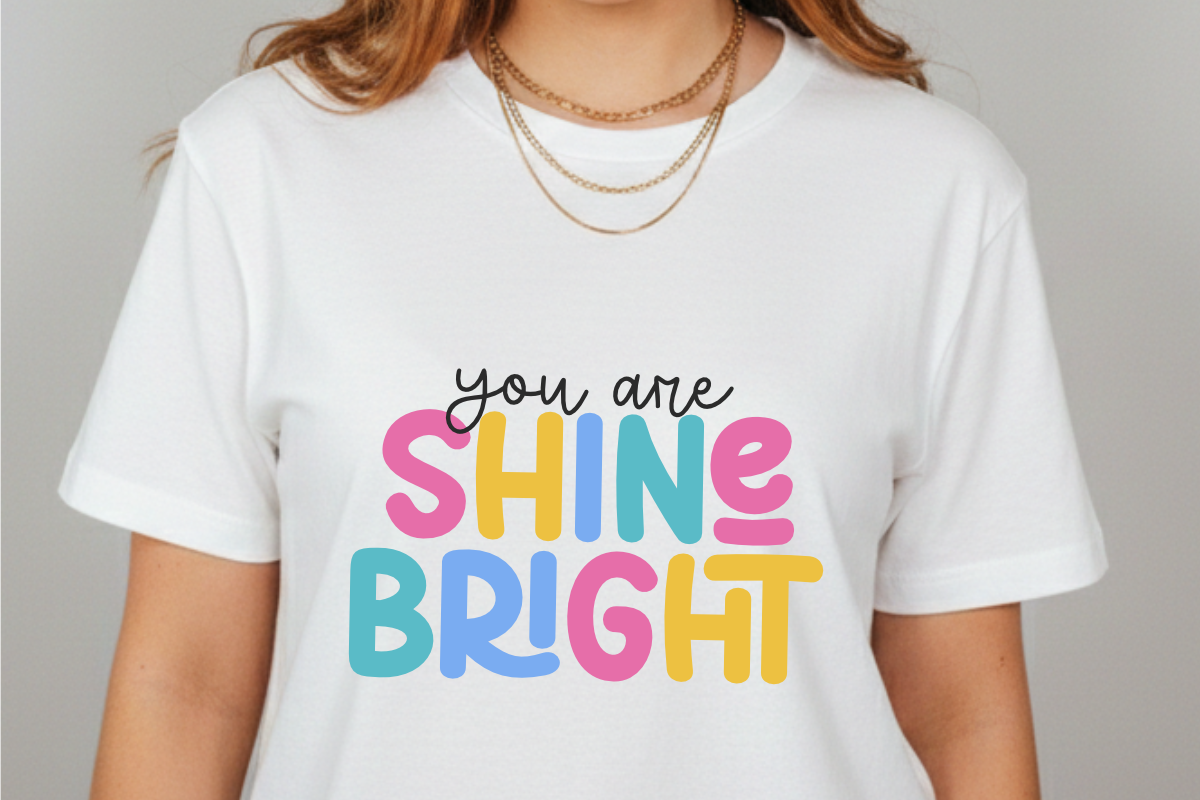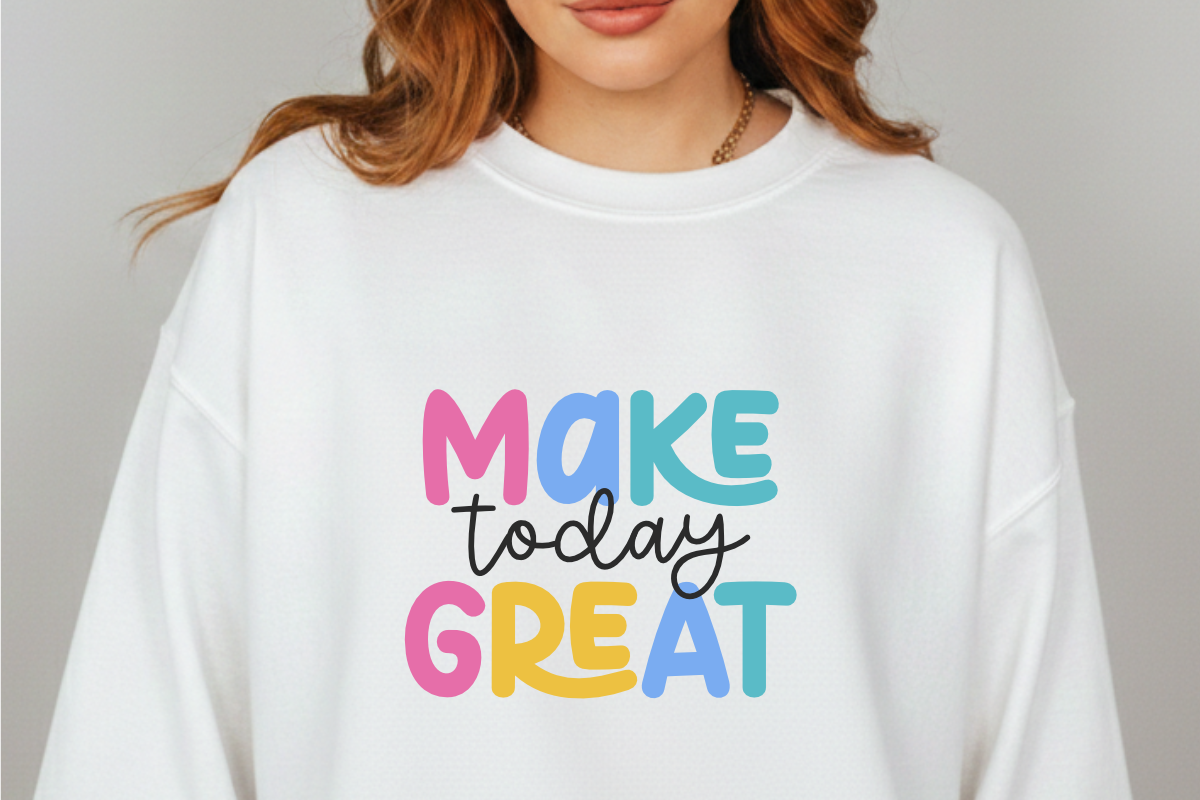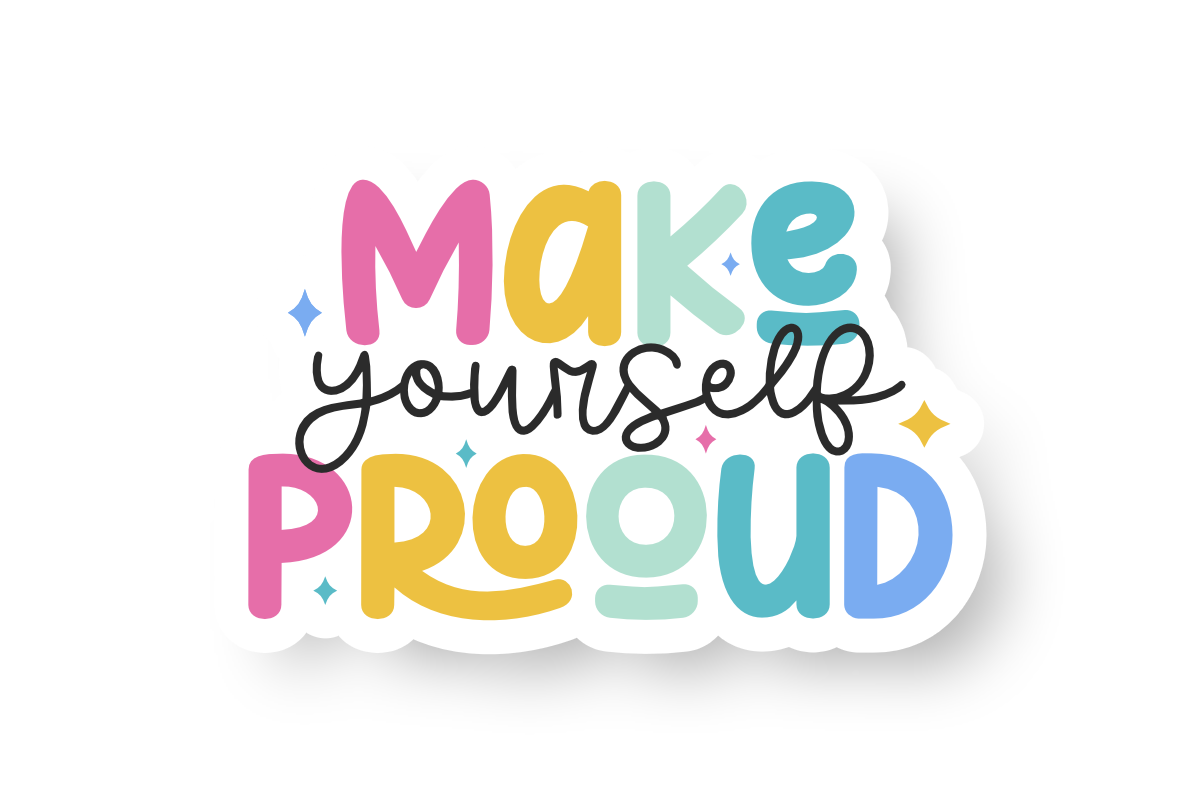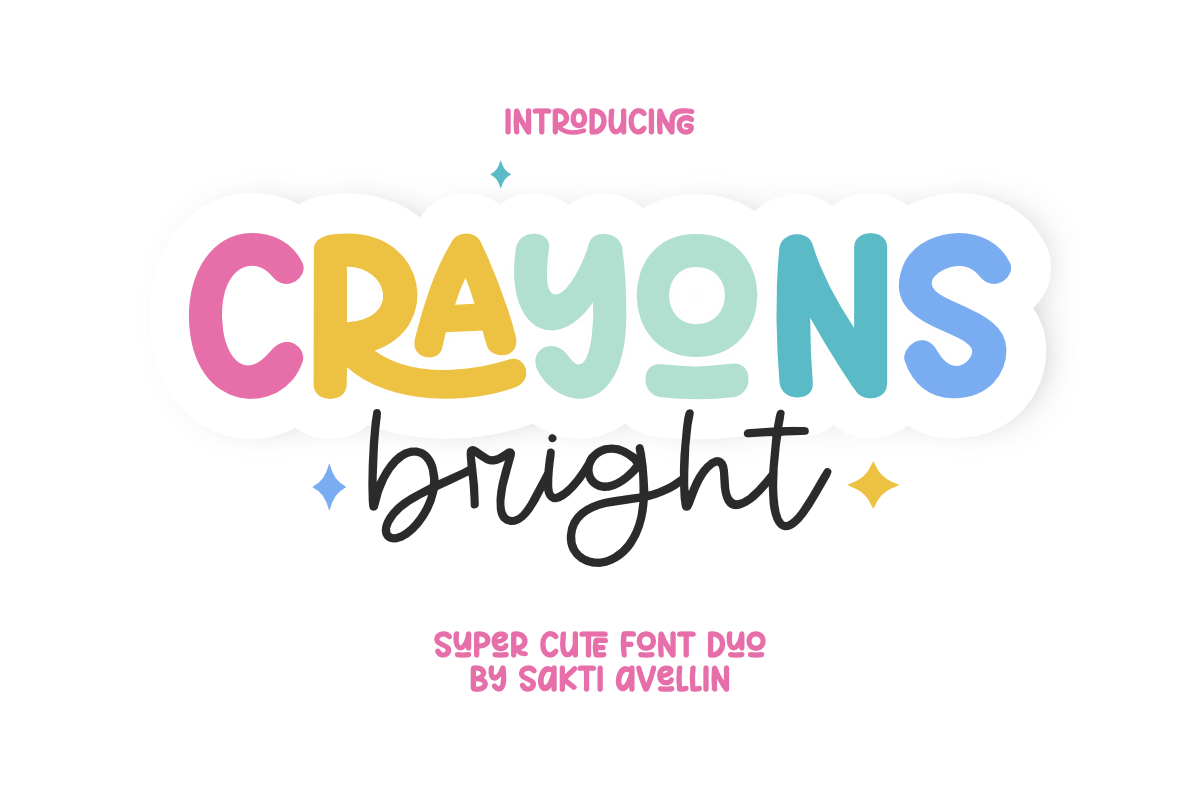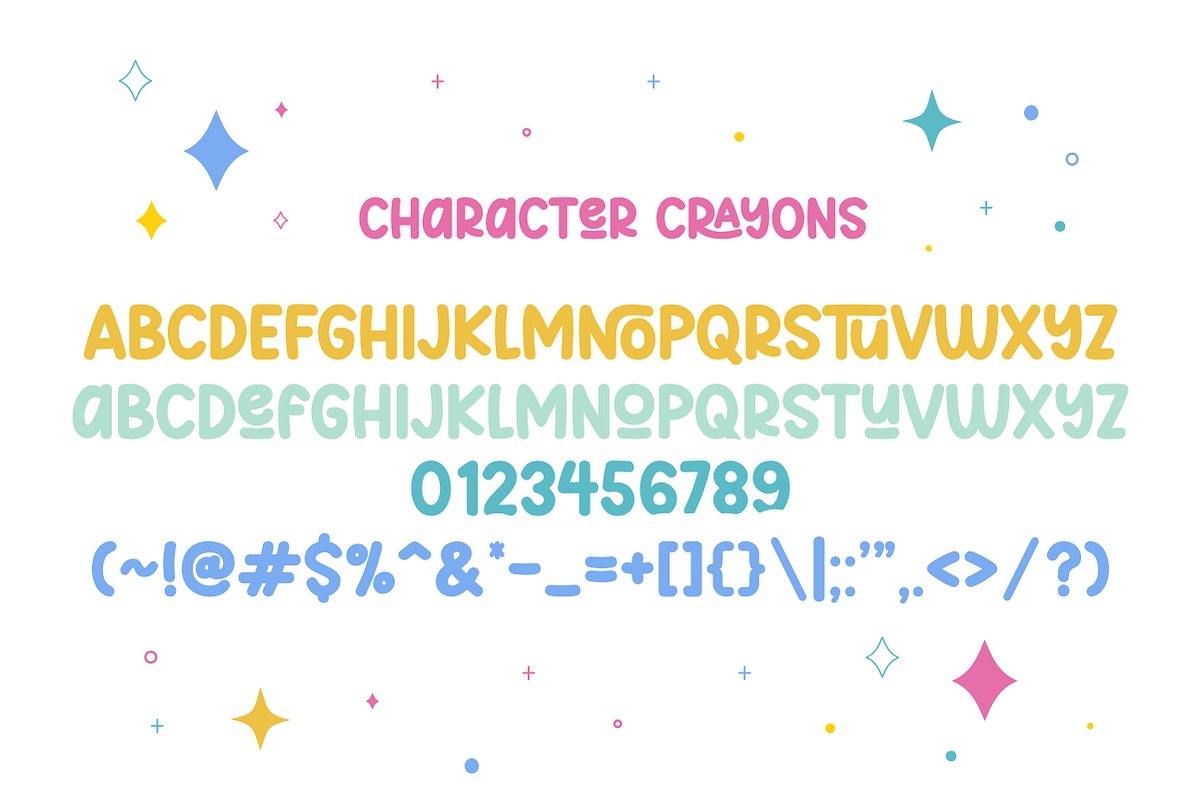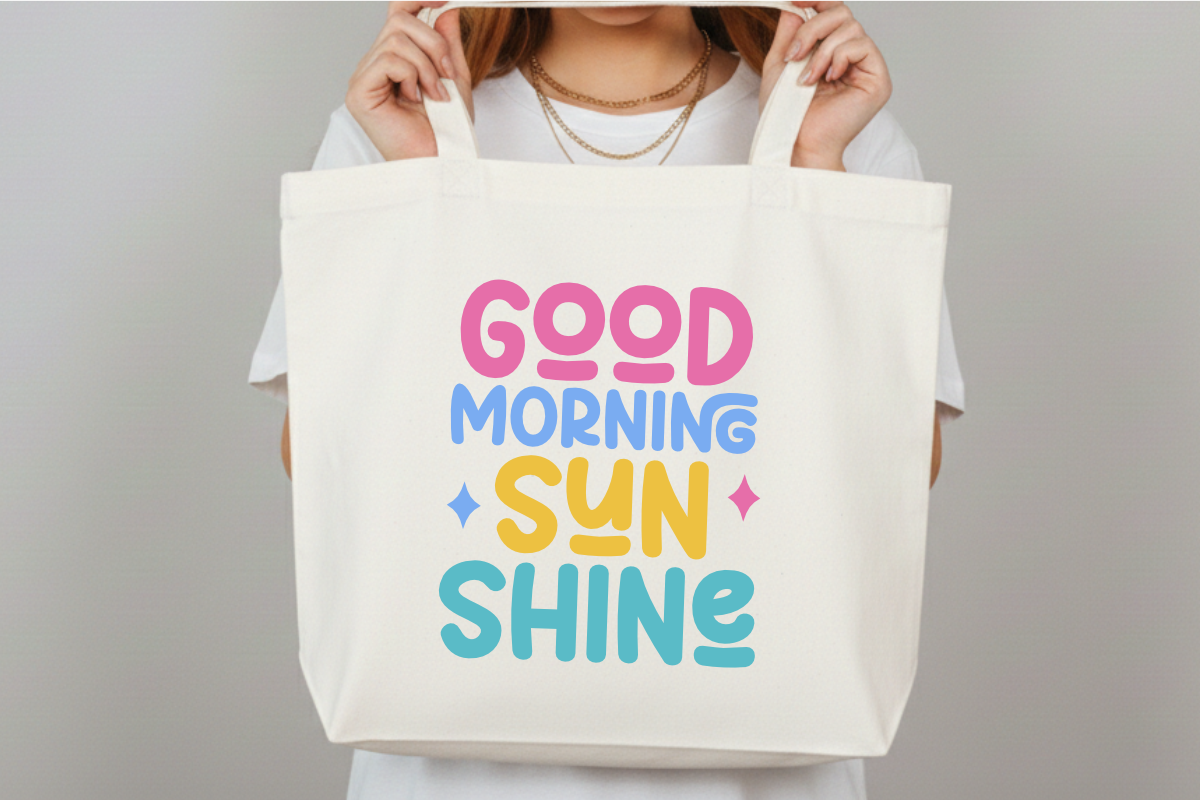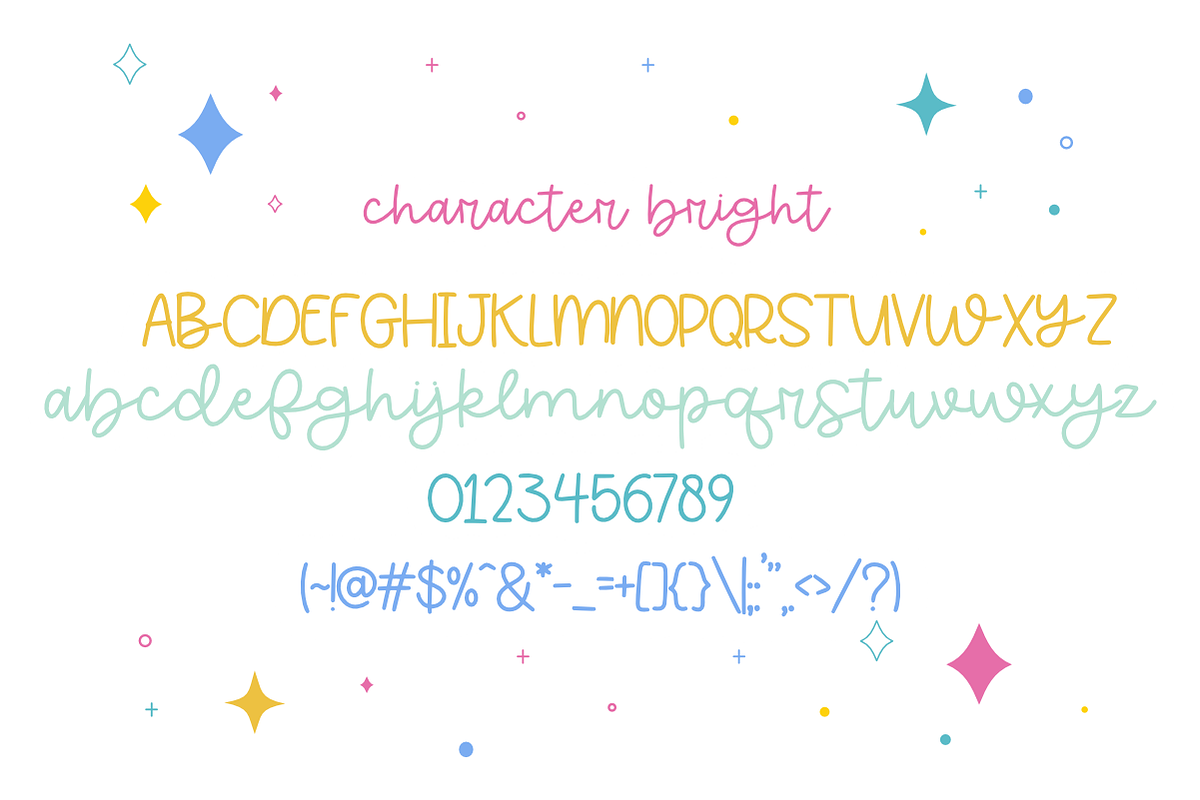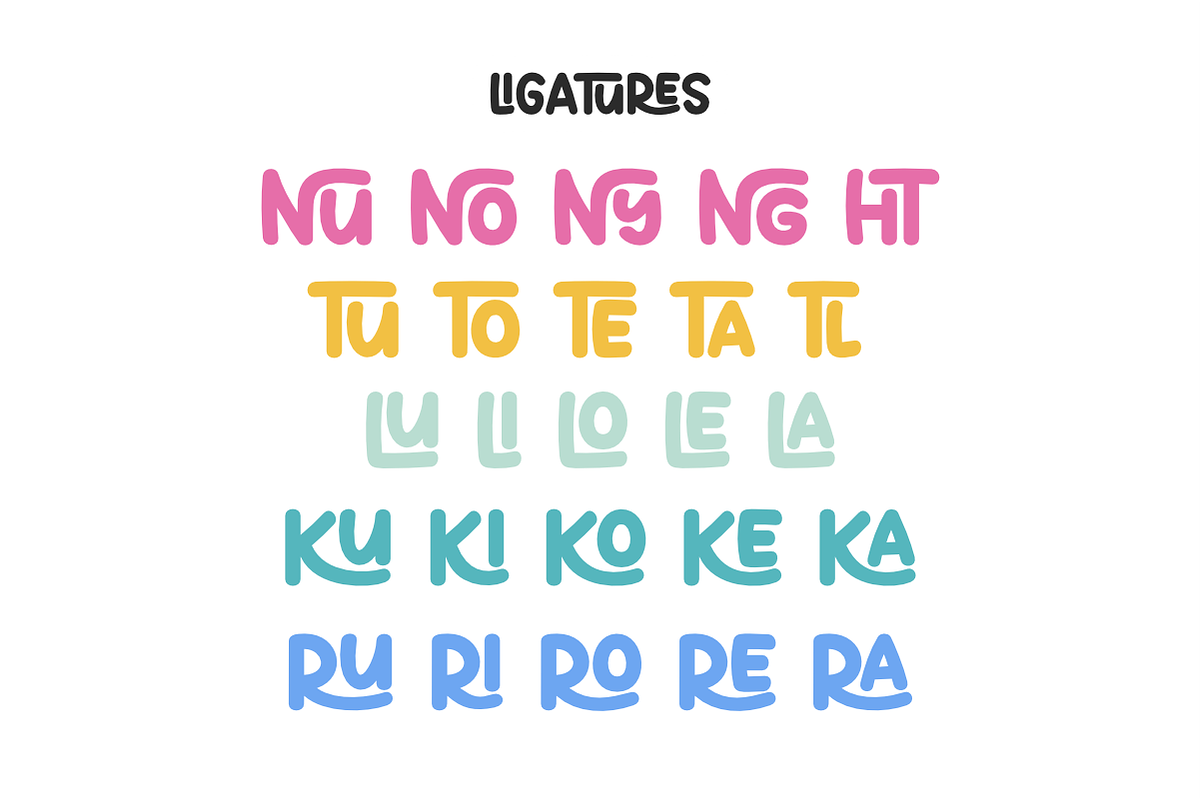
Crayons Bright - Cute Font Duo
Crayons Bright is a delightful and super cute font duo designed to bring a playful, organic energy to your creative projects. This pairing features a bold, bubbly display typeface for "Crayons" and a charming, thin handwritten script for "bright", making it an ideal choice for kids' branding, nursery decor, colorful stickers, and cheerful greeting cards. Its handcrafted aesthetic and whimsical star accents ensure your designs feel personal and full of life. Whether you are creating toy packaging, summer apparel, or sweet social media graphics, Crayons Bright offers a perfect, high-contrast balance for any modern design.